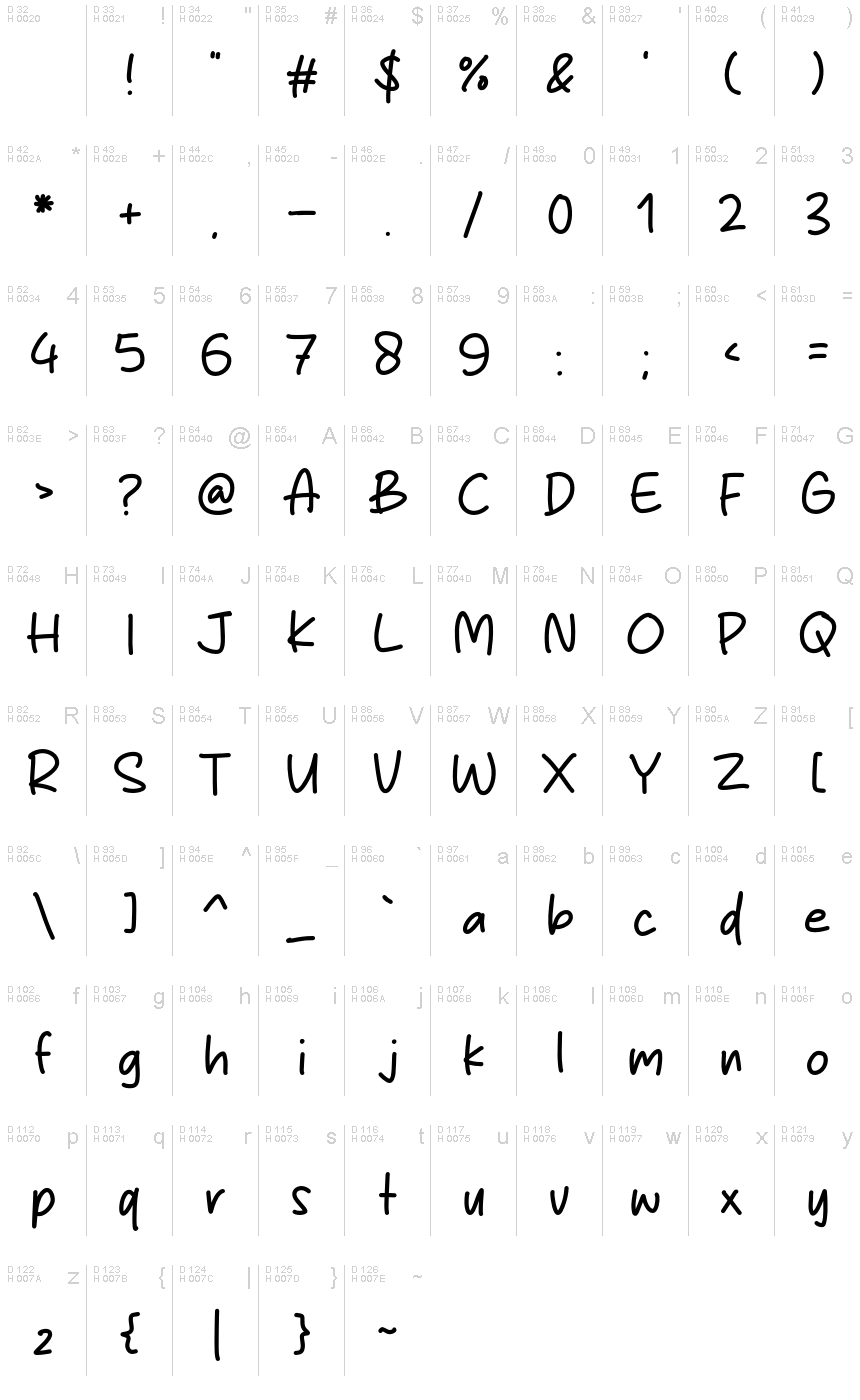
Shiny Retina
Shiny Retina font, designed by MJType, offers a captivating handwritten style that exudes personality and charm. Its smooth curves and fluid strokes convey an authentic hand-drawn feeling, making it perfect for projects requiring a personal touch or creative flair.
This distinctive free font is ideal for invitations, logos, and branding materials where an informal yet stylish impression is key. Shiny Retina seamlessly blends casual elegance with readability, ensuring your message stands out. Ready to enhance your designs?